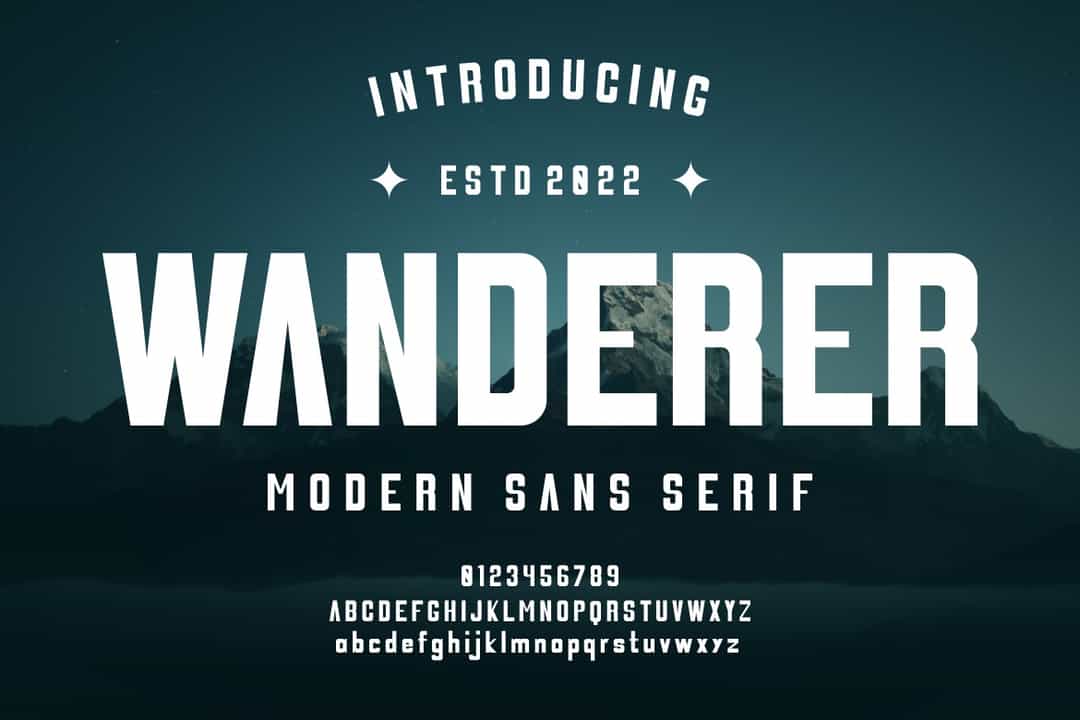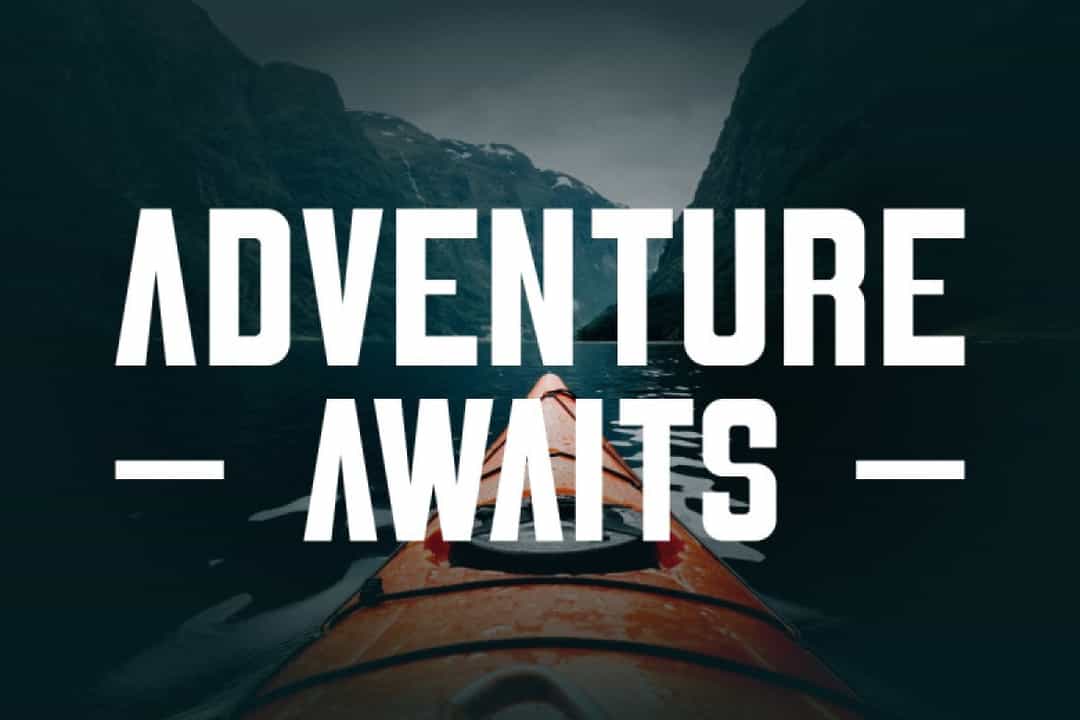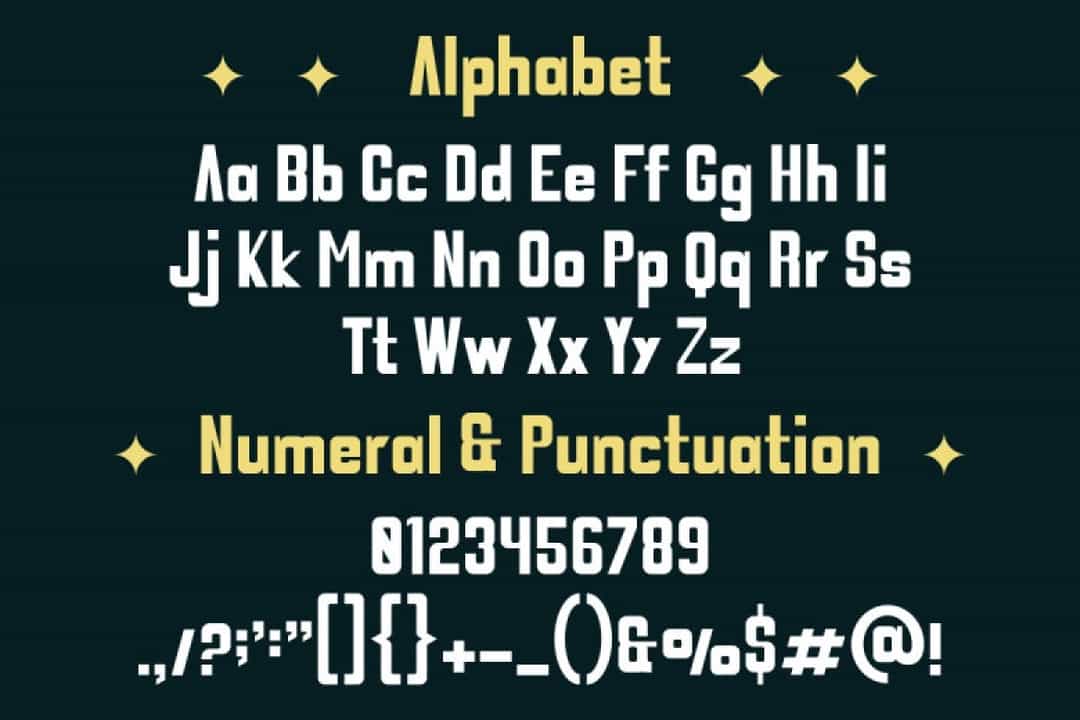
Discover Wanderer Font, part of the Sans Serif collection—a versatile and unique font perfect for adding a personal touch to your projects. Download it for free and enjoy crafting designs with style, from invitations to social media posts. This font is available exclusively for personal use, giving you the freedom to create without limits. Unlock your creativity with Wanderer Font today!
WANDERER Contemporary Font is an authentic and striking sans serif font suitable for branding projects such as T-shirt printing and logo T-shirt design, among many others. It makes an impactful statement in various situations.